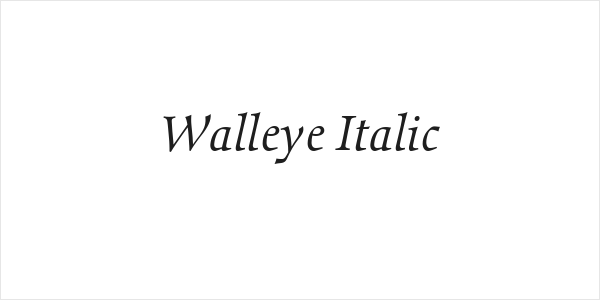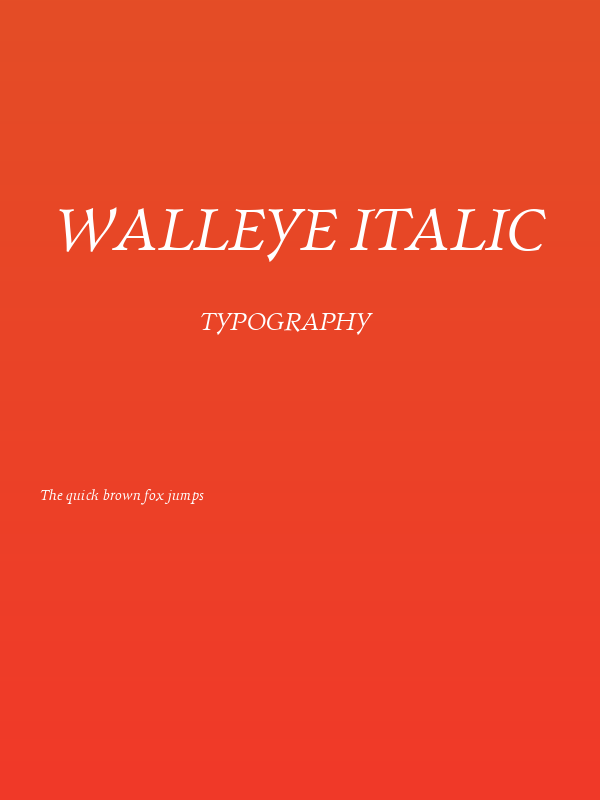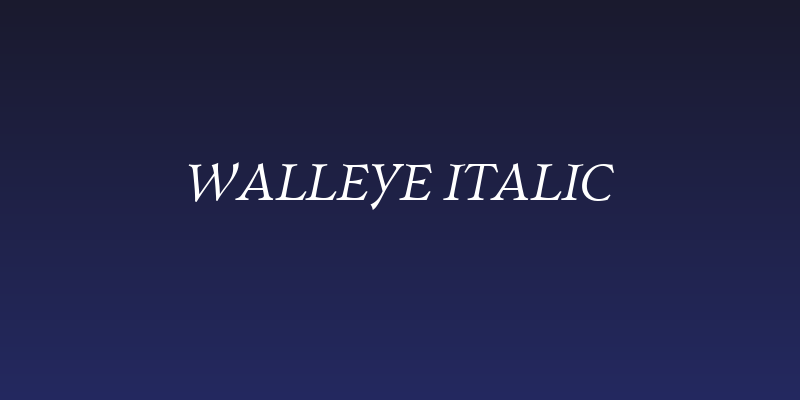
Walleye Italic Font
Walleye Italic Description
This font exhibits a sophisticated and elegant italic style, characterized by its smooth, flowing curves and moderate slant. The serifs are pronounced yet refined, adding a touch of classic elegance to each character. The uppercase letters maintain a strong presence, while the lowercase letters are more delicate, offering a harmonious balance. The numerals are clear and distinct, ensuring readability. Special characters are well-integrated, maintaining the overall aesthetic. This font is ideal for projects requiring a touch of sophistication and style.
Overall StyleClassic
Use CaseHeadlines, Logos, Invitations
Proposed ProjectsIdeal for wedding invitations, luxury branding, editorial design, and elegant packaging.